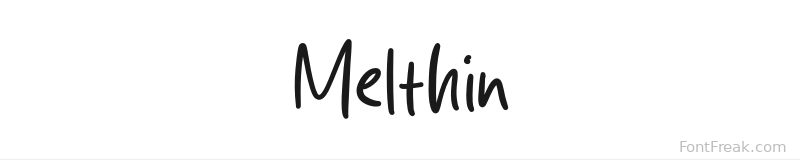
Melthin
About Melthin
Melthin by MJType is a captivating handwritten font that embodies a modern yet playful aesthetic. Designed with a unique flair, Melthin features smooth, flowing strokes that evoke a sense of creativity and warmth. The font boasts a medium stroke weight with subtle contrast, providing an inviting readability that makes it suitable for various applications. Its generous spacing allows for easy legibility, while the slightly irregular edges add a touch of organic charm.
This versatile font excels in several use cases, making it a valuable addition to any designer's toolkit. It is particularly well-suited for wedding invitations, where its elegant yet informal style can convey a personal touch. Additionally, Melthin shines on restaurant menus, where its friendly appearance can enhance the dining experience by making the text feel approachable. For content creators, it works wonderfully in social media graphics and blog headers, helping to create visually appealing layouts that draw in audiences. Furthermore, Melthin can bring a whimsical flair to children’s book covers, engaging young readers and capturing the essence of storytelling.
What sets Melthin apart is its ability to blend professionalism with a touch of personality. This font captures attention while maintaining clarity, making it a reliable choice for both digital and print applications. With its engaging style and versatility, Melthin font free download is an excellent resource for anyone looking to add a unique touch to their creative endeavors.